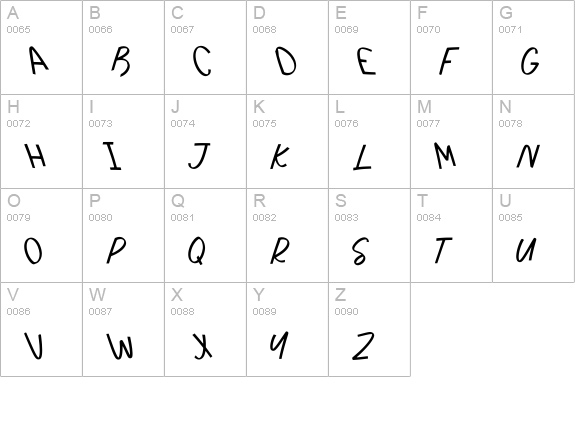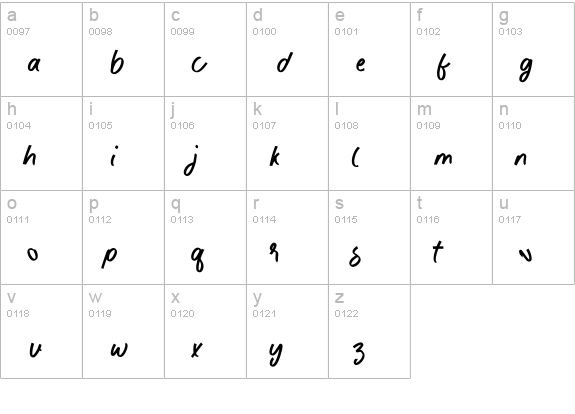
Sea Font Font Details
Introducing Sea Font, a captivating and versatile typeface inspired by the tranquil beauty of the ocean. This unique font features fluid lines and graceful curves that evoke the ebb and flow of the sea. With its elegant yet modern design, Sea Font is perfect for a wide range of design projects, from branding to editorial layouts.